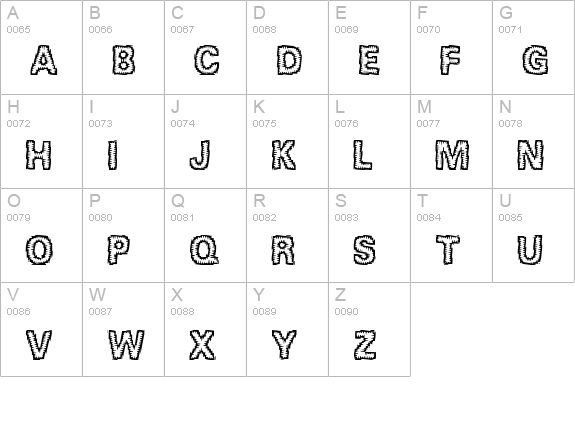
Jagged BRK Font Details
Jagged BRK is a bold and edgy font that exudes a sense of raw power and determination. With its sharp, jagged edges, this font is perfect for projects that demand attention and make a bold statement. Whether you're designing a logo, creating eye-catching headlines, or crafting a powerful poster, Jagged BRK is sure to leave a lasting impression. What makes Jagged BRK even more appealing is that it is freely available to download at FontsMarket.com. This means that you can enjoy all the benefits of this striking font without having to spend a dime. With just a few clicks, you can enhance your designs with the striking and aggressive aesthetics of Jagged BRK. The versatility of Jagged BRK knows no bounds. Its bold and rugged appearance makes it a great choice for projects that require a touch of intensity and strength. It can be used in various design applications, including advertising, branding, packaging, and more. Whether you're looking to create a powerful visual impact or want to add a touch of uniqueness to your designs, Jagged BRK is the perfect font to unleash your creativity. With its freely available download, Jagged BRK offers a unique opportunity to designers, artists, and creatives to explore its potential and use it in a wide range of projects. Its distinctive style and attention-grabbing design will ensure that your work stands out from the crowd. So, don't miss out on the chance to add Jagged BRK to your font collection. Head over to FontsMarket.com and download this striking font for free. Let Jagged BRK elevate your designs to new heights and captivate your audience with its bold and fearless presence.